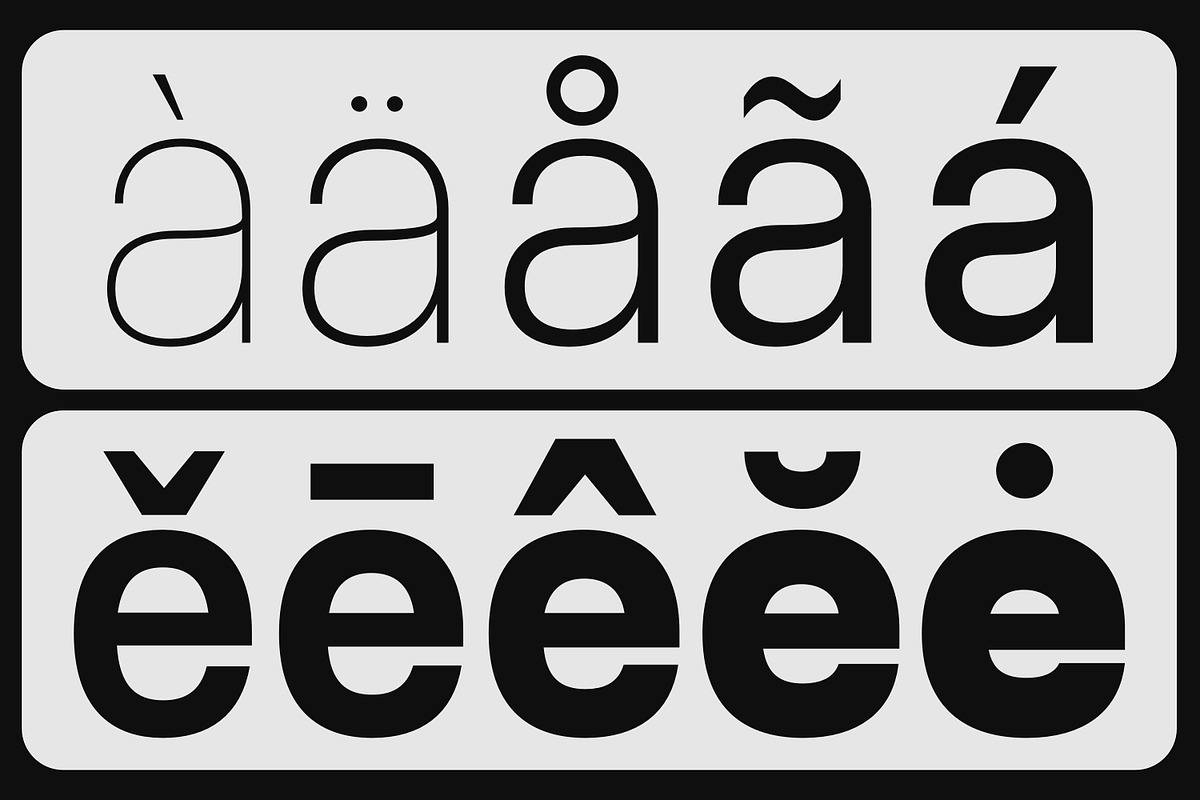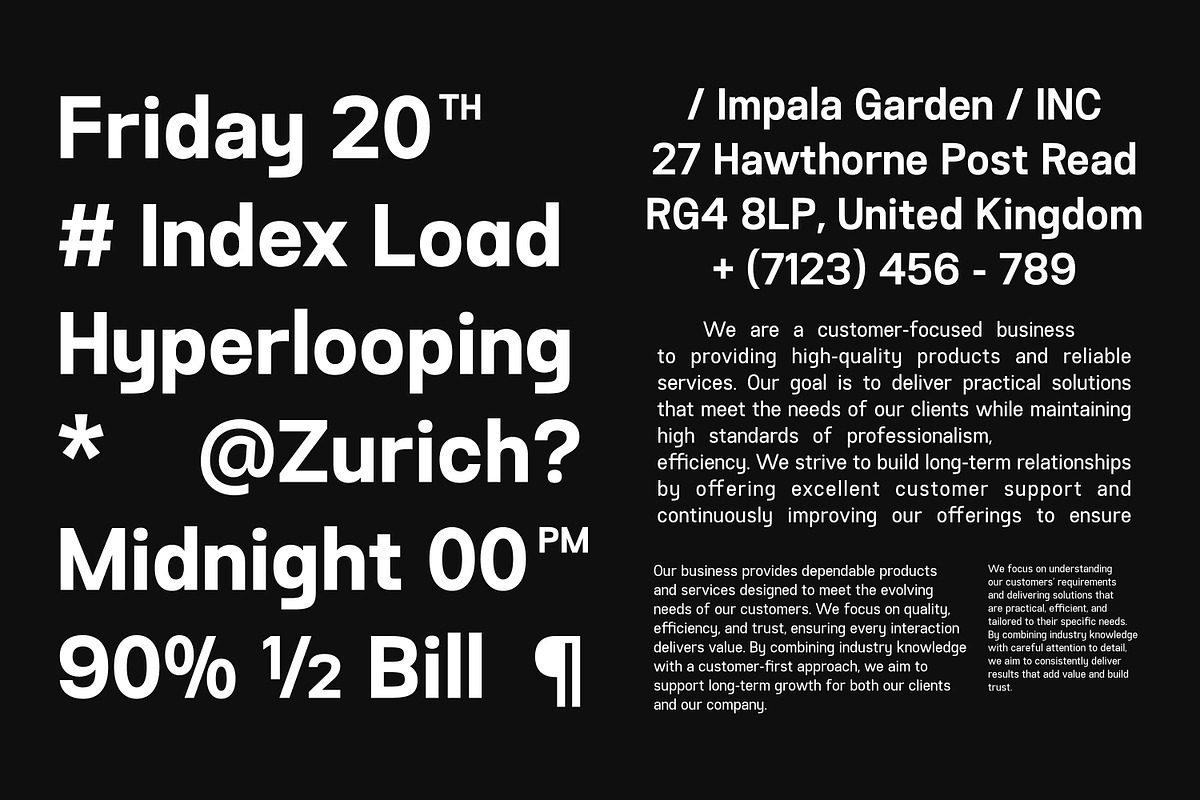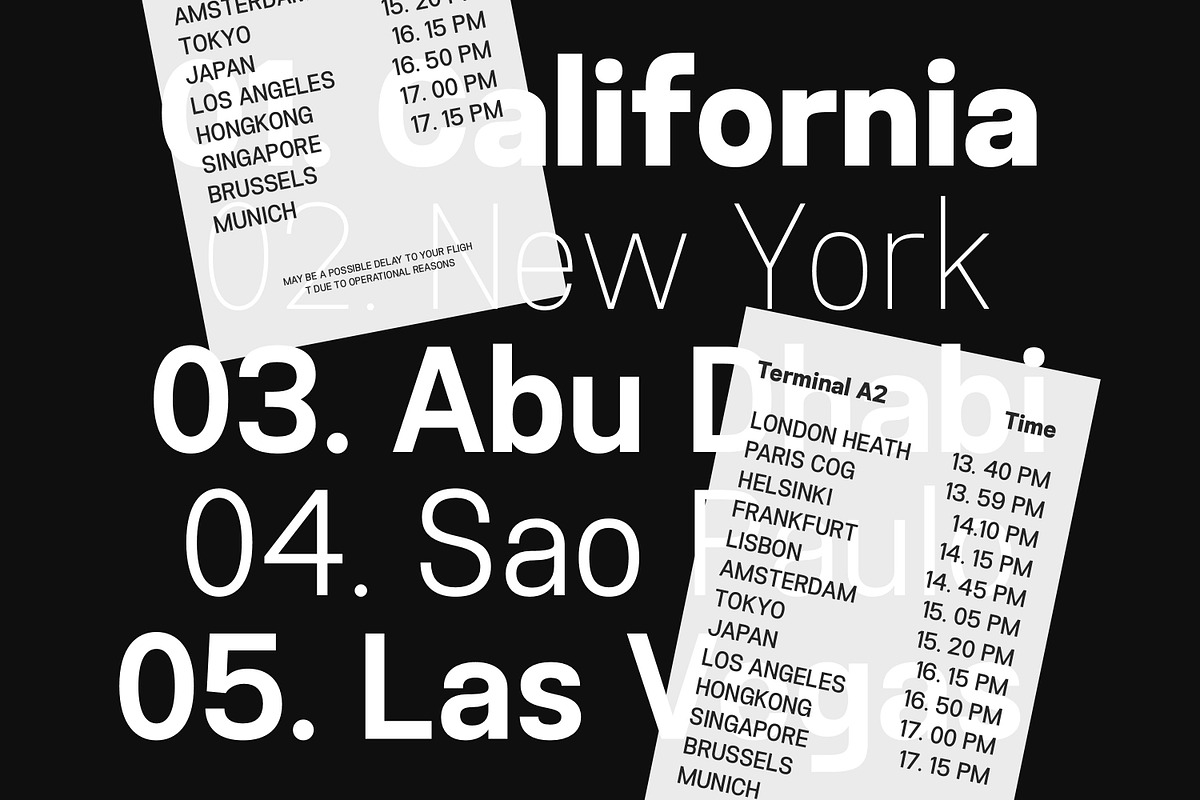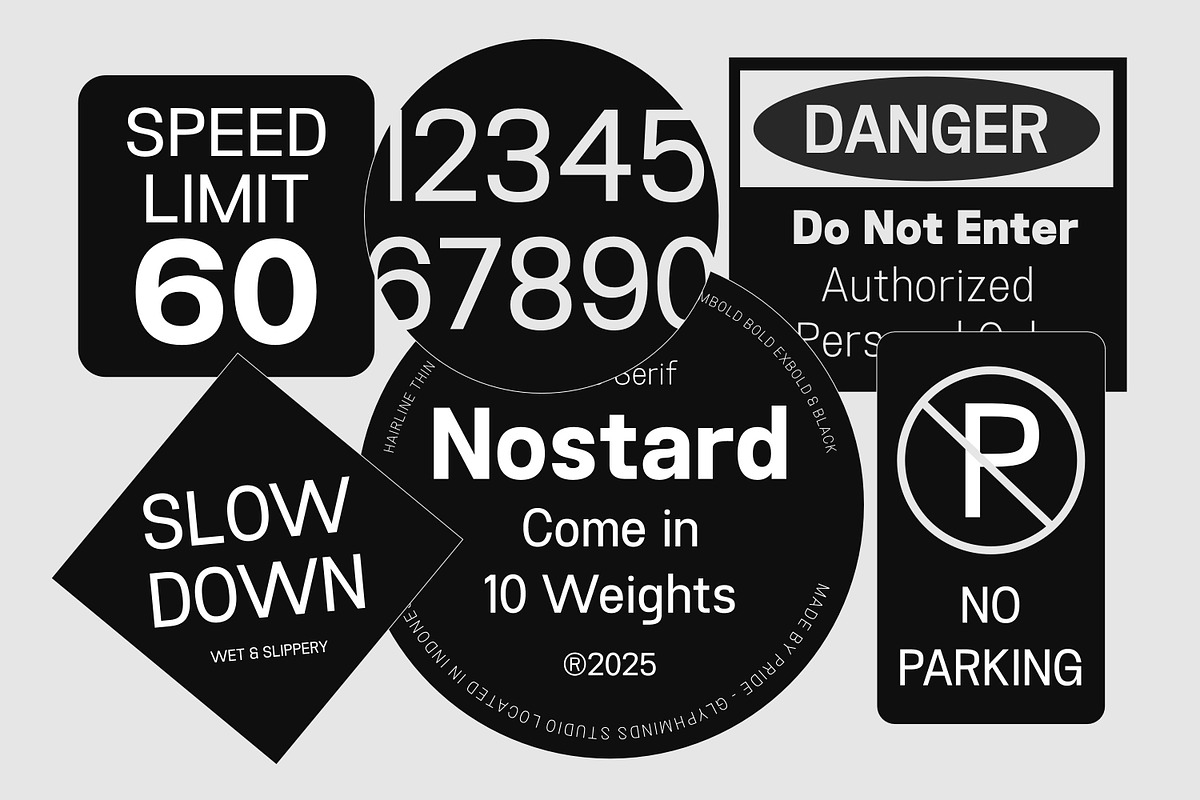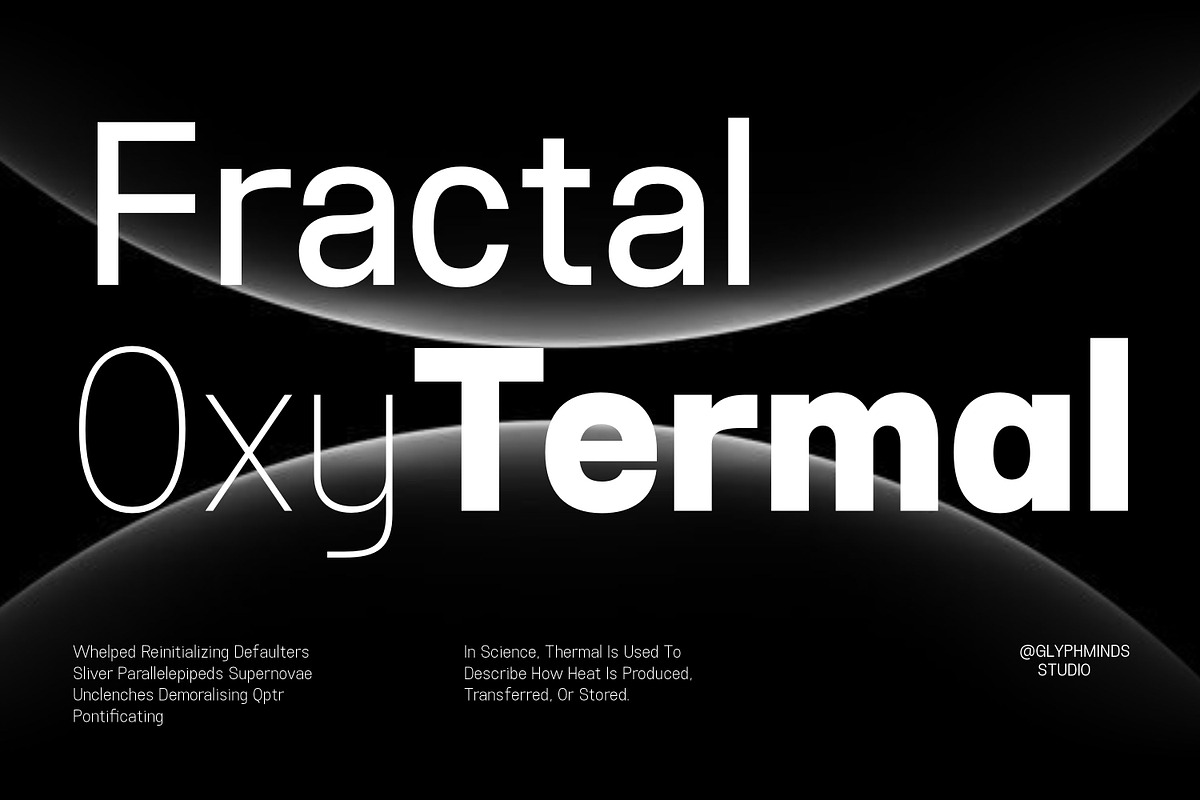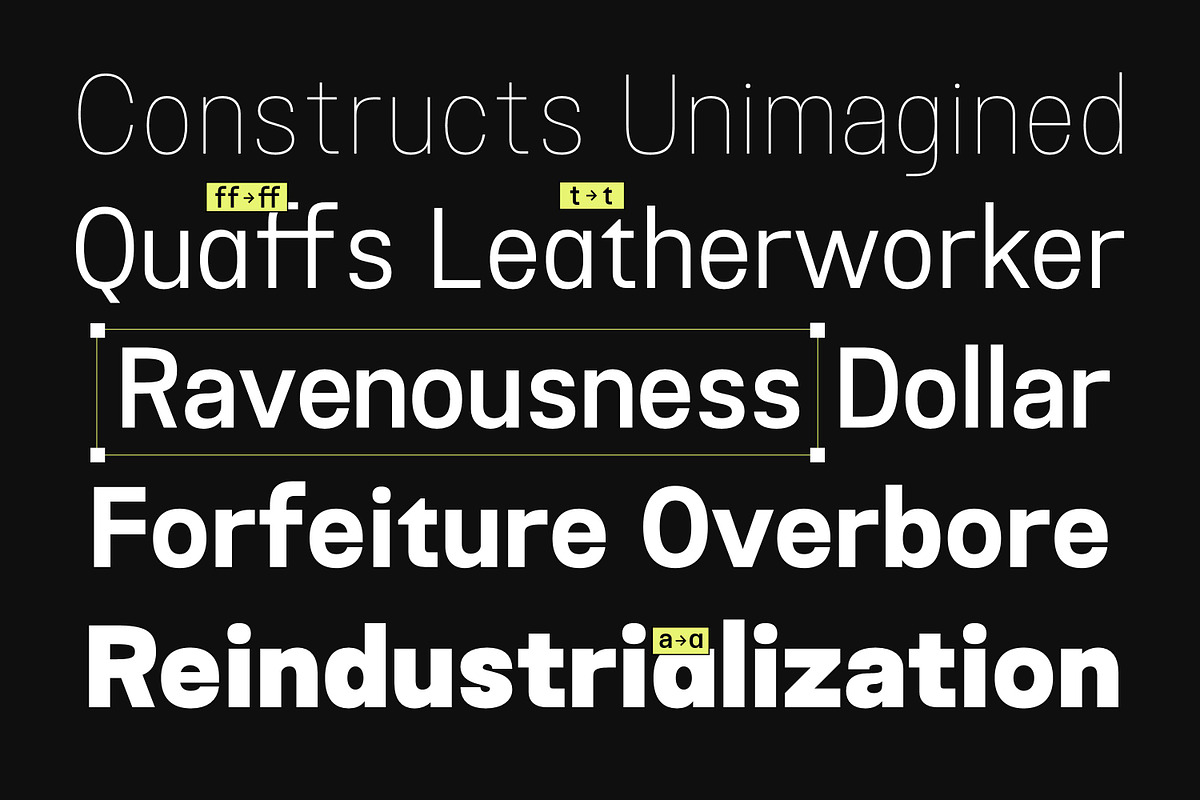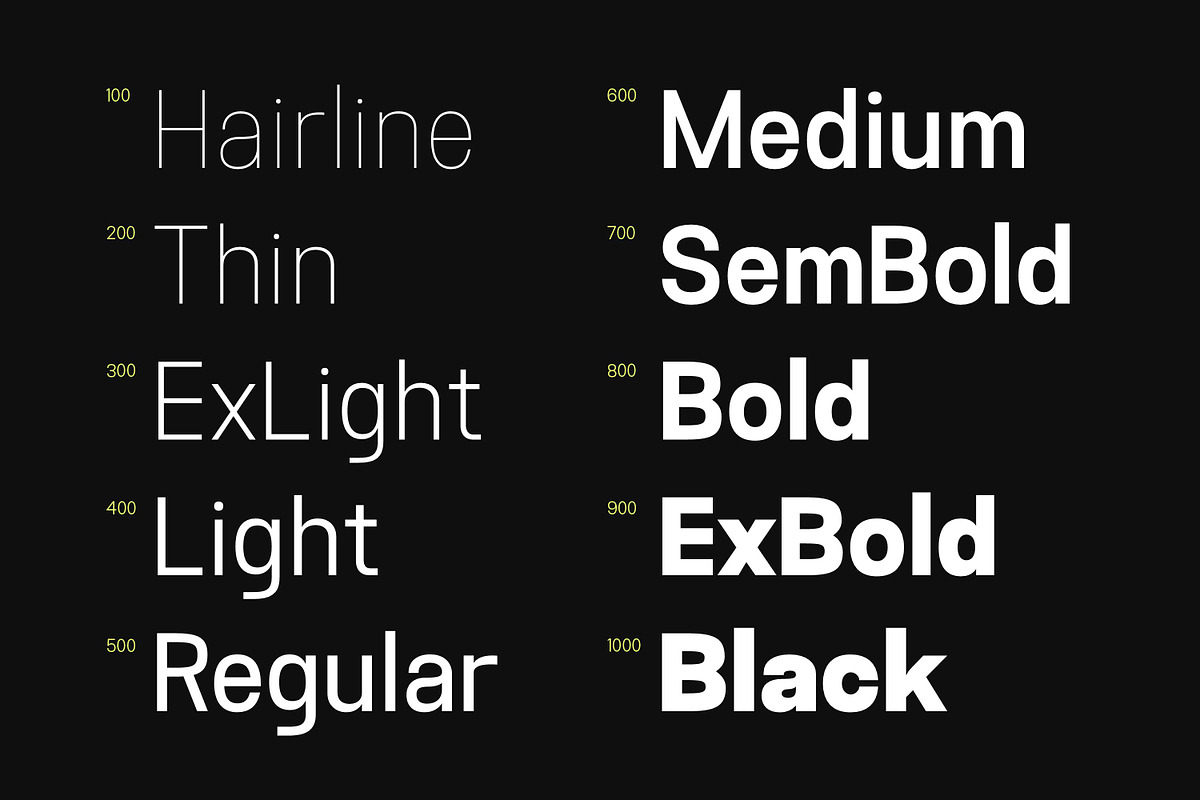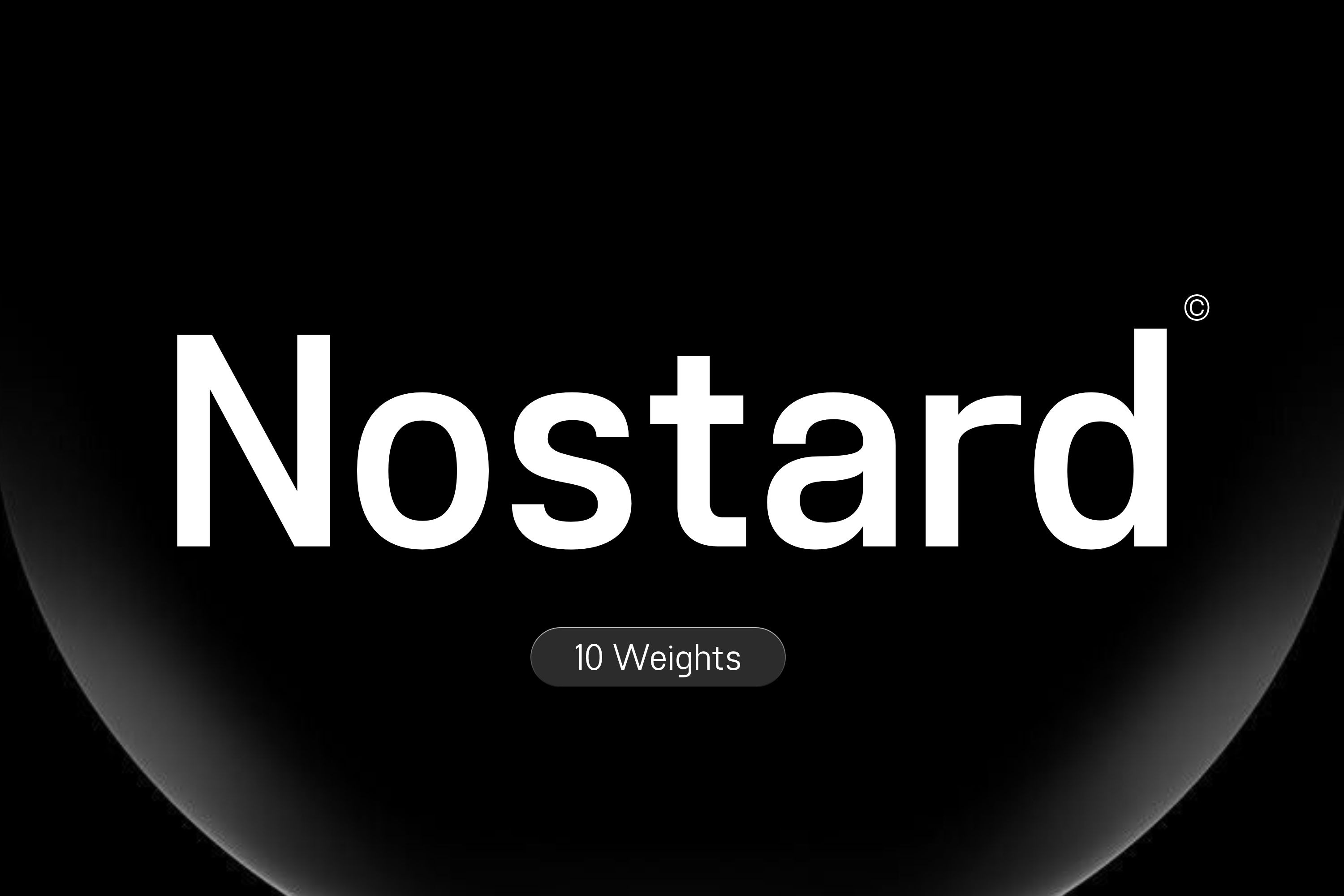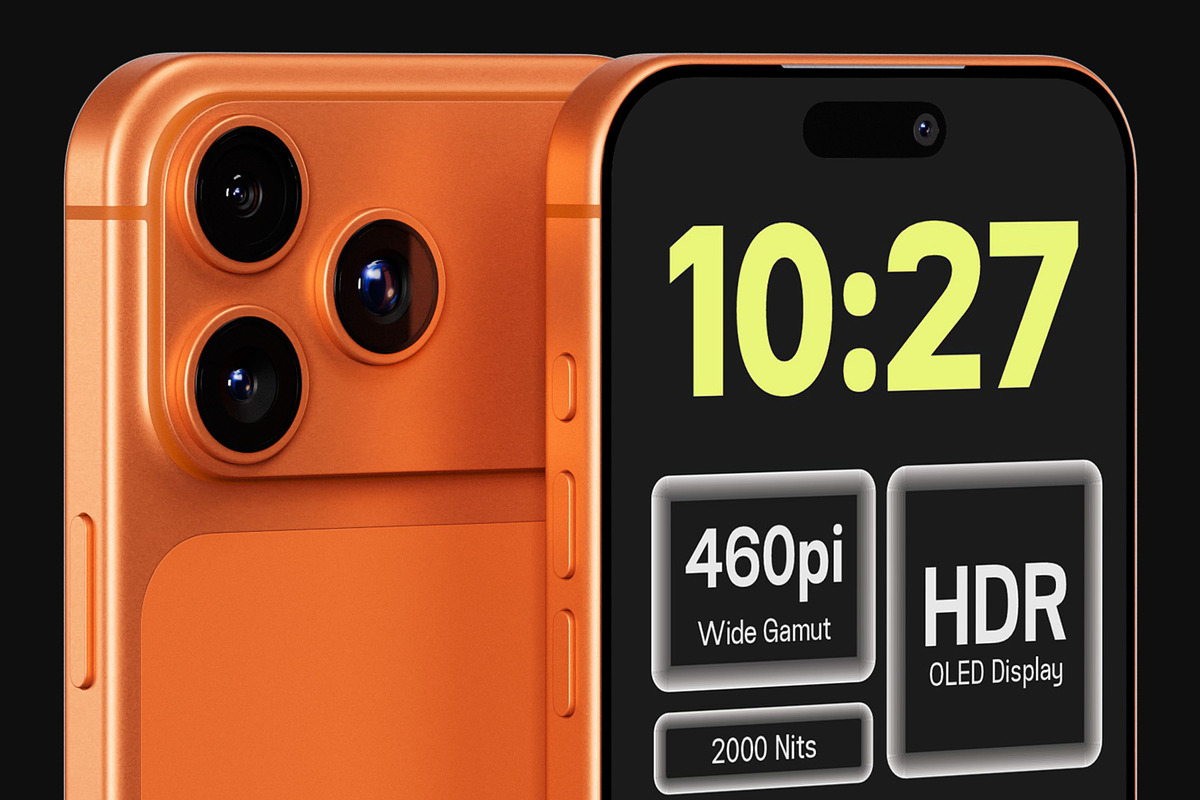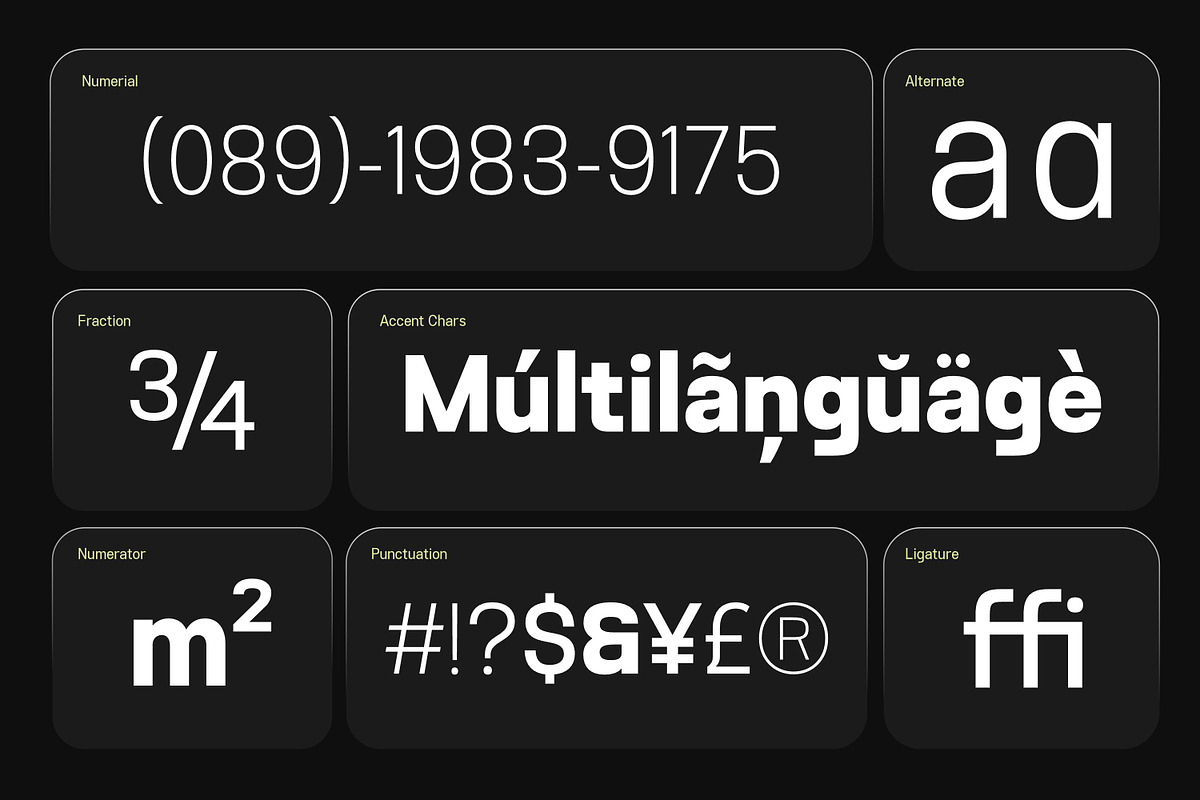
Nostard Font
One Font Family. Infinite Possibilities.
Meet Nostard, the modern sans serif designed to be the backbone of your design library. Whether you need the ethereal elegance of a Hairline weight for high-end fashion or the commanding authority of a Black weight for a bold brand identity, Nostard delivers with mathematical precision.
Crafted for the modern designer, Nostard bridges the gap between functional legibility and aesthetic minimalism. Its clean lines and balanced proportions make it a powerhouse for UI/UX interfaces, corporate branding, and sophisticated editorial layouts. ✨ Why Nostard is a Must-Have:
10 Weights Included: Complete range from Hairline, Thin, Light, and Regular through to Bold, Extra Bold, and Black.
Supreme Legibility: Optimized for both high-resolution screens and crisp print materials.
Timeless Aesthetic: A neutral yet characterful design that won't go out of style.
The Ultimate Workhorse: One family that handles headlines, subheadlines, and body copy seamlessly.
Elevate your design standards with a typeface built for excellence. Experience the precision of Nostard. If you’re looking for a reliable modern typeface that looks premium and works everywhere, Nostard is the perfect choice.